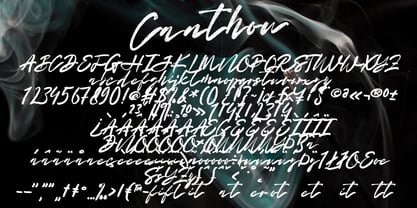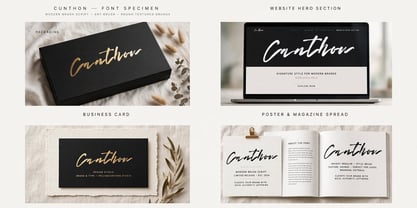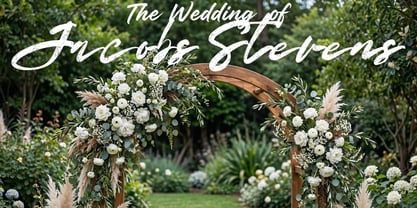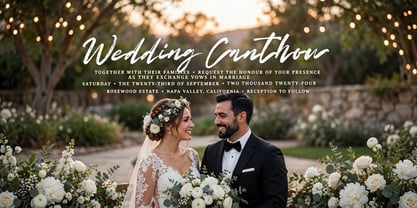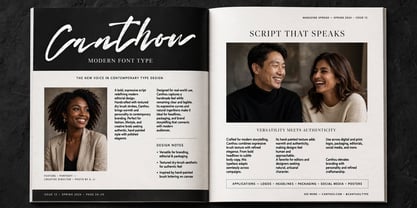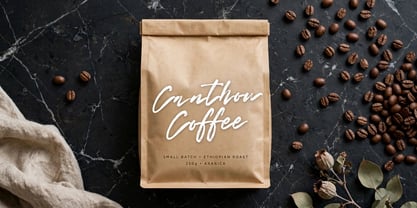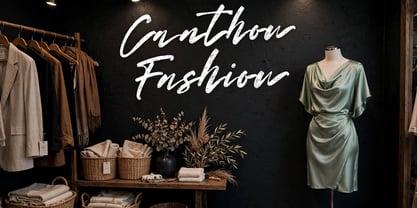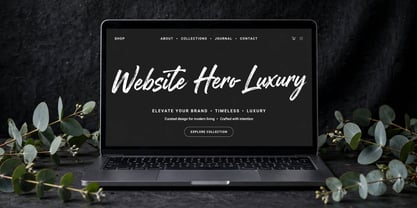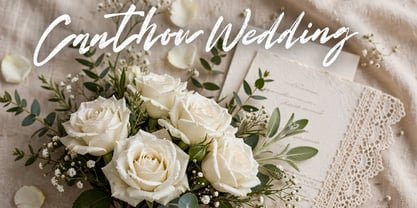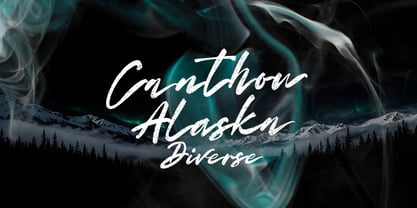
Canthou
The Canthou Font Family was designed by Dhoni Trihatmoko and published by Ayska. Canthou contains 1 styles. More about this family
Introducing Canthou, an embodiment of modern elegance and quiet charm effortlessly woven into a handwritten font. Our unique craft whispers sophistication and precision into your creative designs with a delicately flowing touch. Canthou, with its serene yet dynamic curvature, subtly spiced with a dash of funk, tips a hat to the authentic rhythm of natural brush lettering. The understated texture, echoing the soft sigh of a brush's stroke, forms the irresistible allure of Canthou. Its distinguished nature makes it an excellent choice for impactful communication and indelible branding.
Canthou